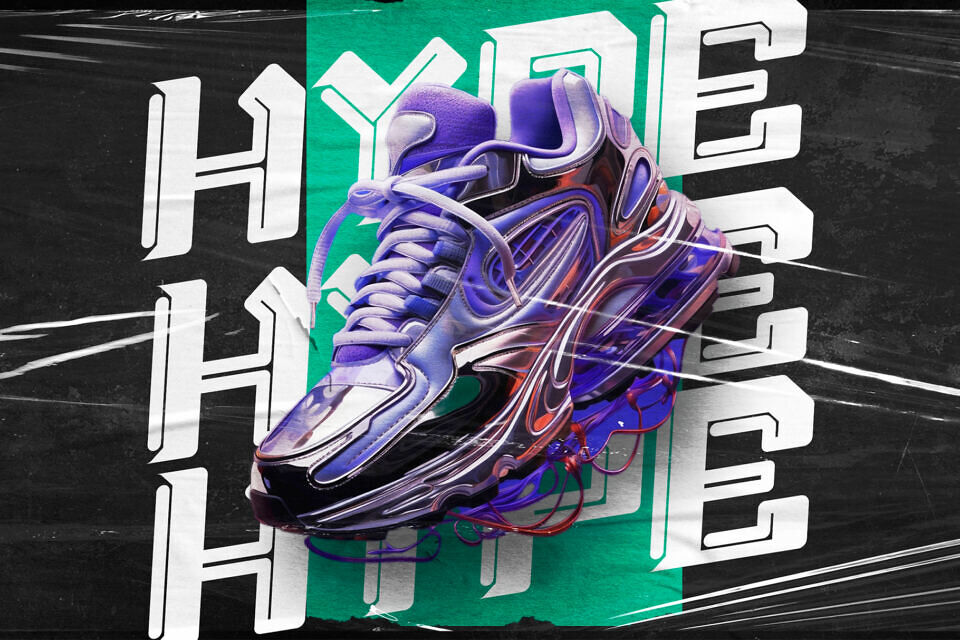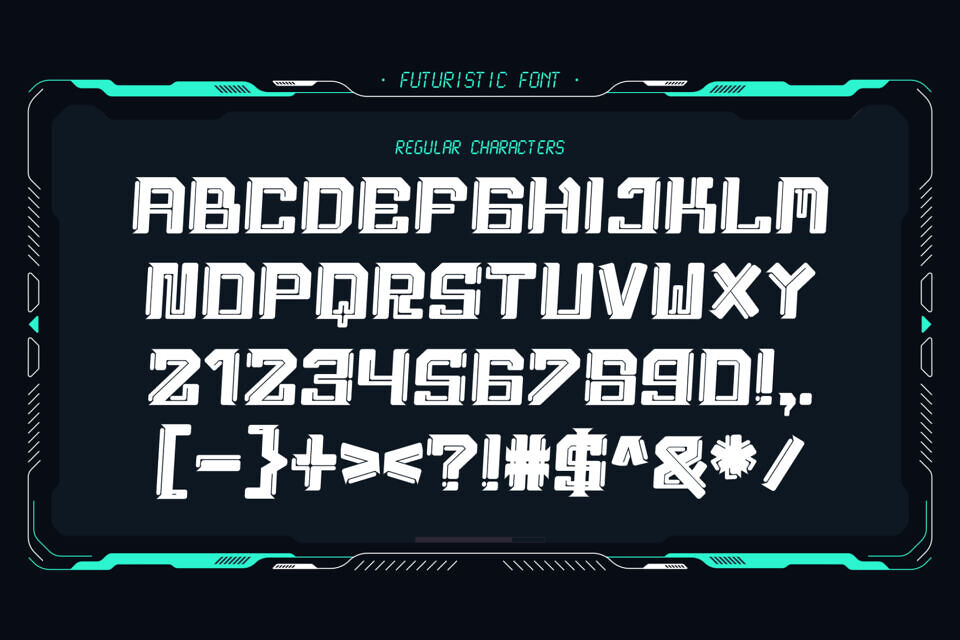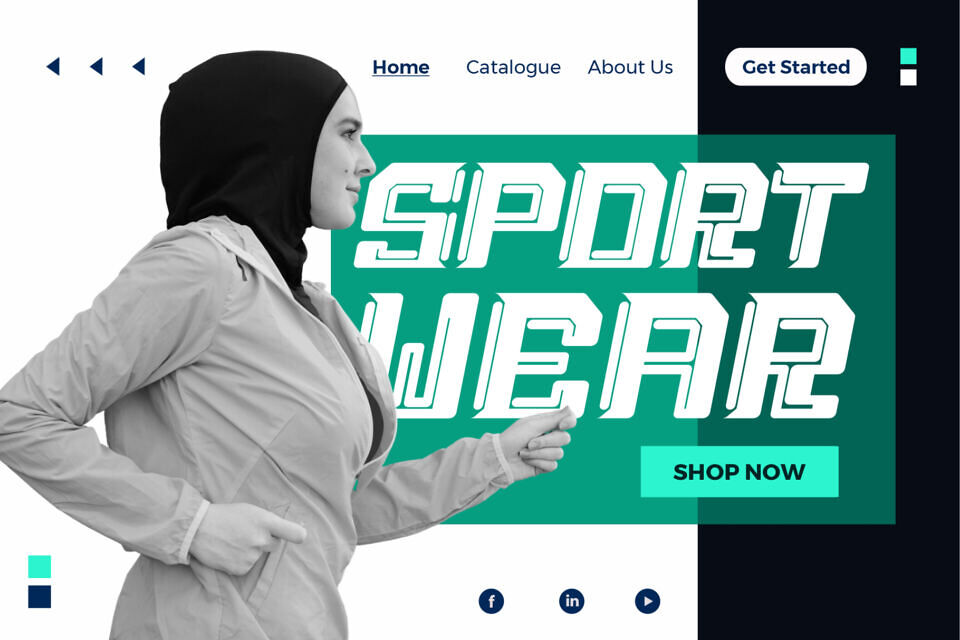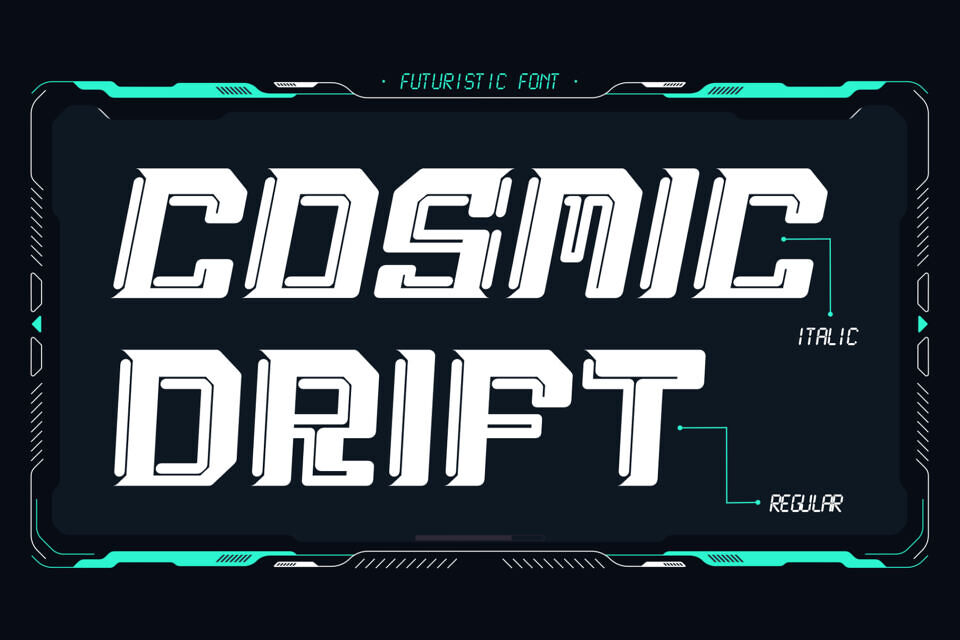
Cosmic Drift Font
Cosmic Drift is a futuristic display font designed with angular precision and high-tech visual energy. Built to convey speed, movement, and modern engineering, this font comes in Regular and Italic styles, giving designers the flexibility to express strength or acceleration within a single family.
The design features sharp modular cuts and aerodynamic forms reminiscent of sci-fi technology, mech mechanics, and advanced digital systems. Each character carries a dynamic forward motion, especially in the Italic version, making the font perfect for high-impact titles and modern digital visuals.